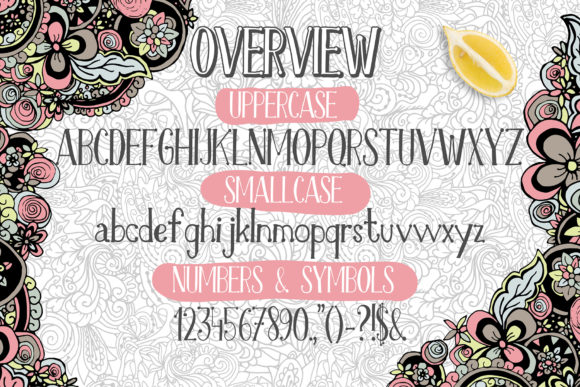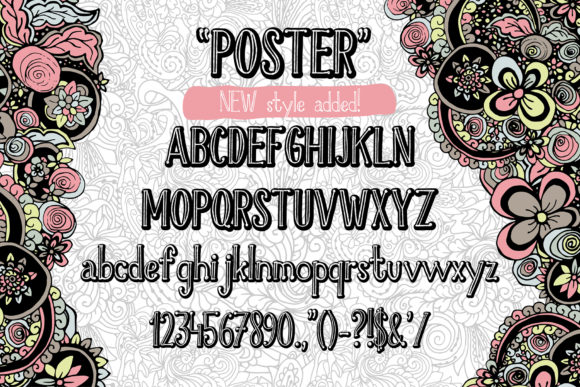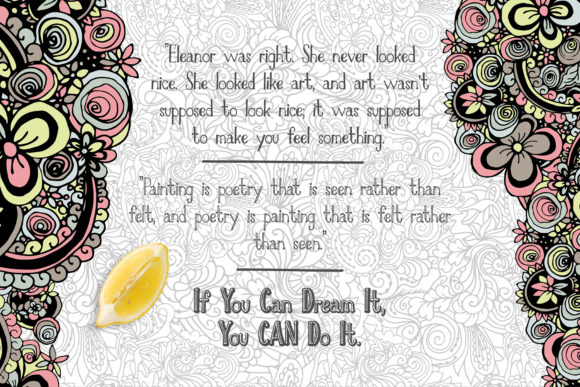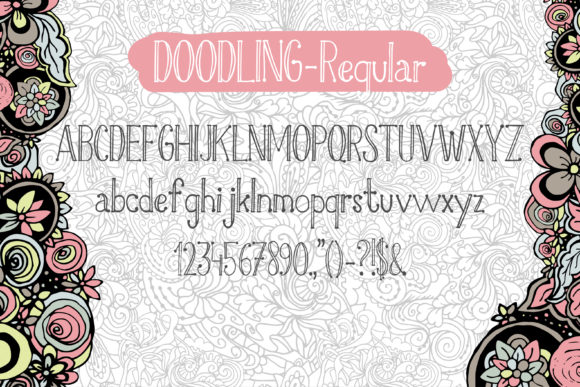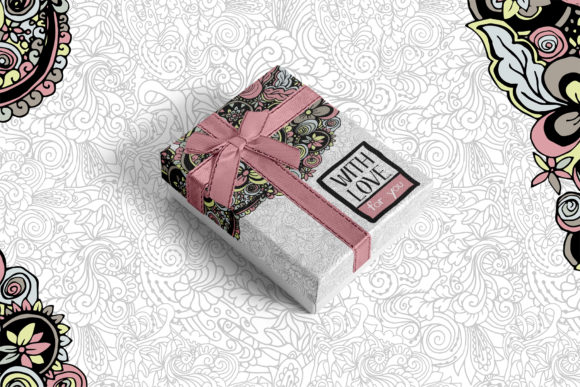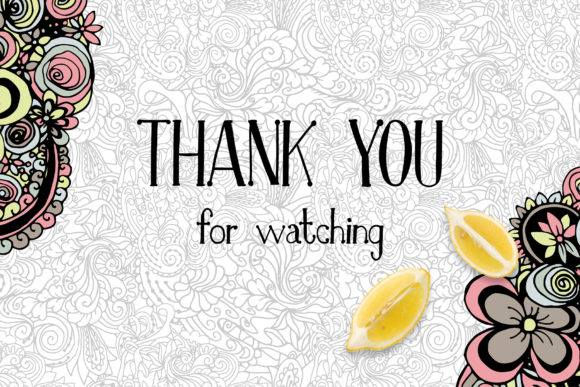
Doodling Family Font: The Perfect Hand-Crafted Companion for Designers and Crafters
Are you a designer or crafter looking for a unique and personalized font to add a touch of warmth and character to your hand-crafted products? Look no further than the Doodling Family Font. This charming font family is specifically designed to bring a sense of whimsy and personality to your creations, making it the perfect companion for any handmade product.
What is the Doodling Family Font?
The Doodling Family Font is a carefully crafted font family that consists of three distinct styles, each with its own unique character and charm. What sets this font apart is its original hand-painted characters, which have been meticulously designed to give your text a personal and hand-crafted feel. The font features kerning and anti-aliasing, ensuring that your text looks crisp and professional, whether you’re using it for product labels, packaging, or marketing materials.
Key Features of the Doodling Family Font
- Three Unique Styles: The Doodling Family Font comes in three styles, giving you the flexibility to choose the one that best suits your project’s tone and personality.
- Original Hand-Painted Characters: Each character in the font has been hand-painted with love and care, giving your text a unique and personal touch.
- Kerning and Anti-Aliasing: The font features expert kerning and anti-aliasing, ensuring that your text looks polished and professional.
- Perfect for Hand-Crafted Products: Whether you’re creating handmade jewelry, artisanal foods, or crafty home decor, this font is designed to complement your products with its warm and inviting style.
Why Choose the Doodling Family Font?
As a designer or crafter, you know how important it is to stand out in a crowded market. The Doodling Family Font can help you do just that. Here are a few reasons why you should consider adding this font to your toolkit:
- Unique and Personalized: The hand-painted characters in this font give your text a one-of-a-kind look that’s sure to catch the eye.
- Versatile: With three styles to choose from, you can use the Doodling Family Font for a wide range of projects, from branding and packaging to signage and marketing materials.
- Experiment with Different Styles: Try out each of the three styles to see which one works best for your project.
- Mix and Match: Don’t be afraid to combine the Doodling Family Font with other fonts to create a unique look.
- Play with Colors and Textures: The Doodling Family Font looks great in a variety of colors and textures, so don’t be afraid to get creative.
| Font Name | Doodling Family Font |
| Author | ilonitta.r |